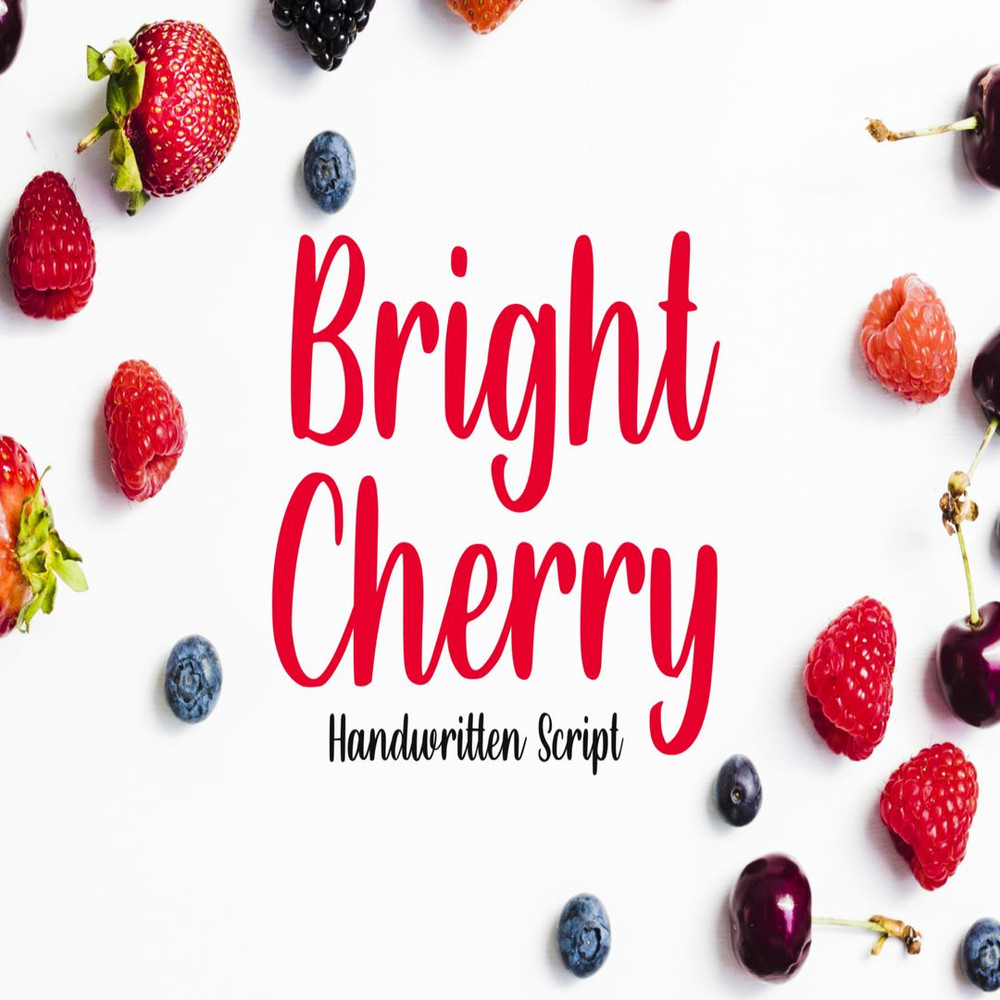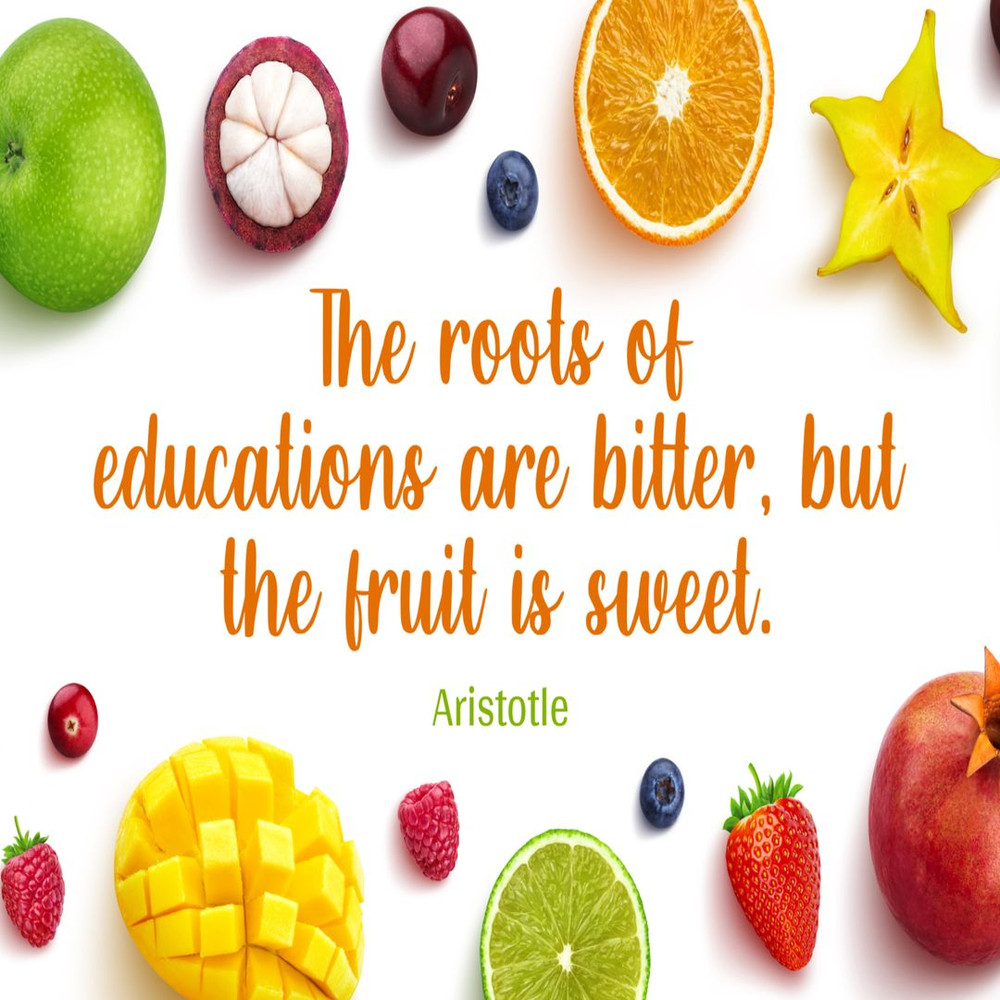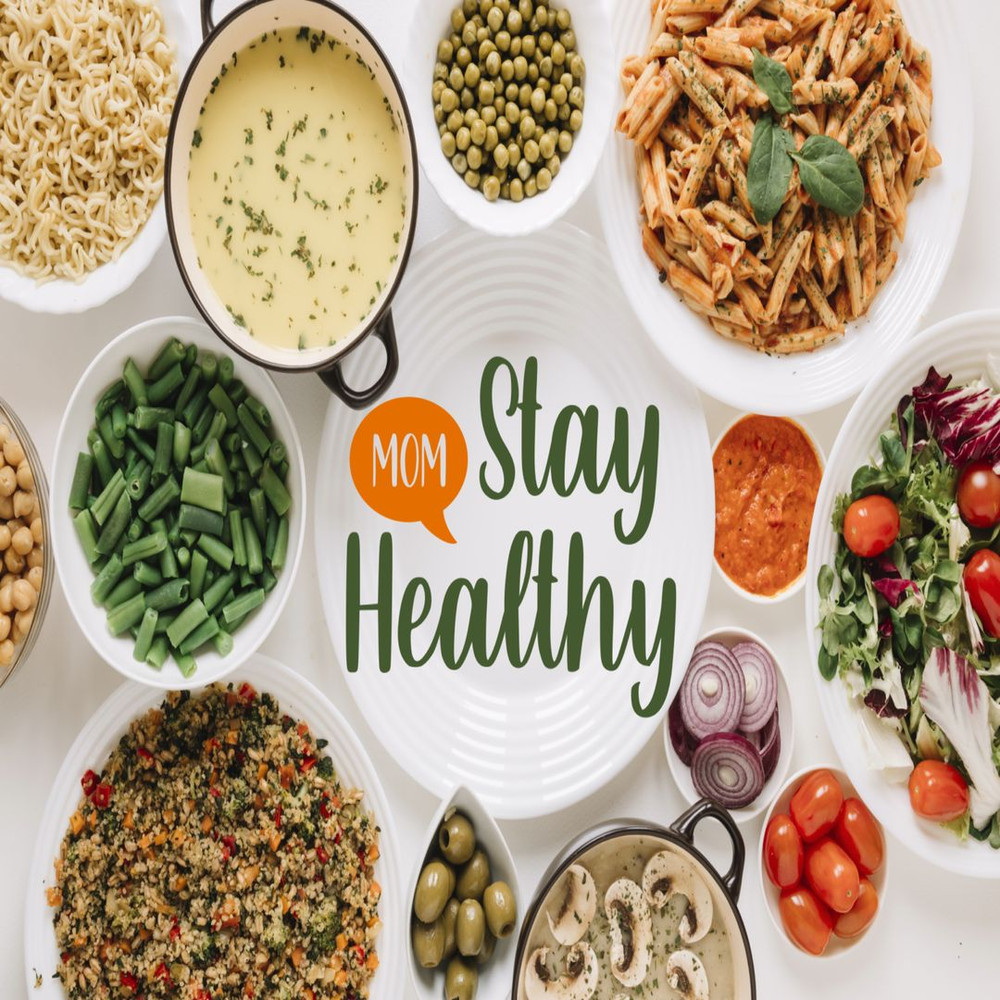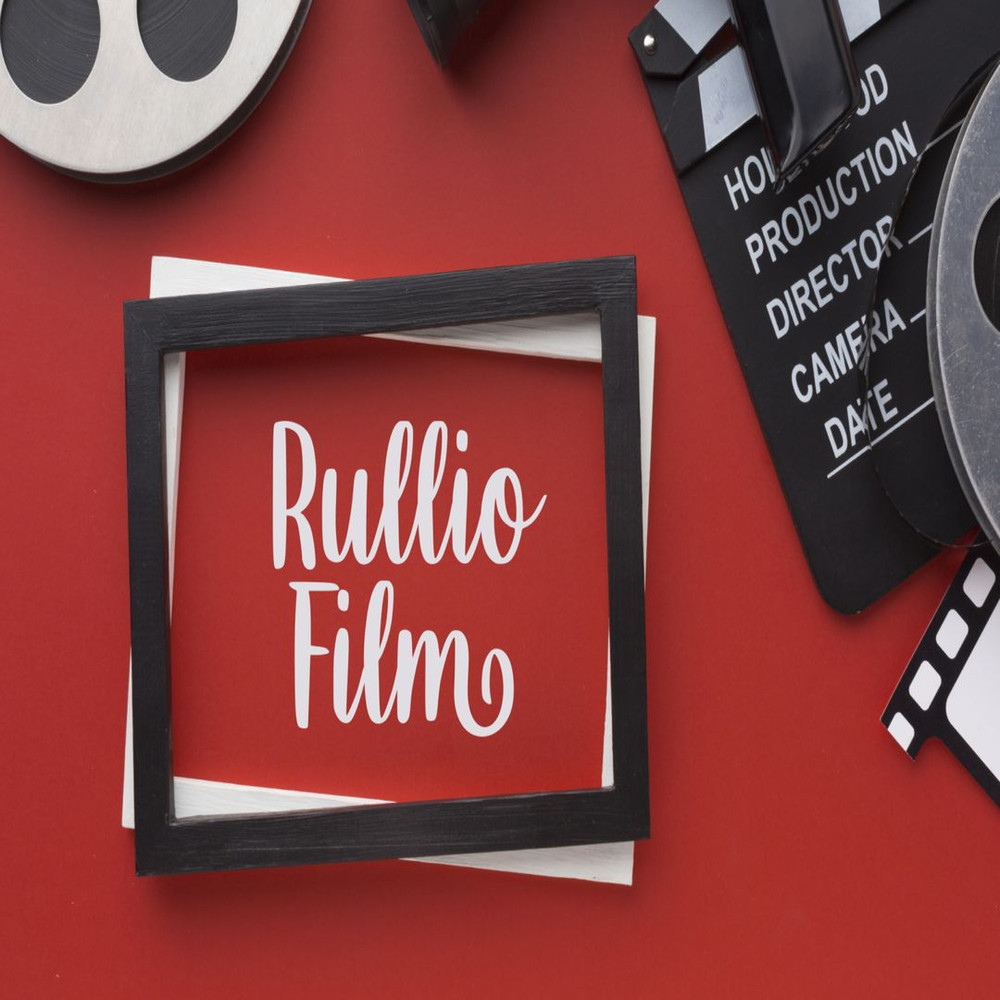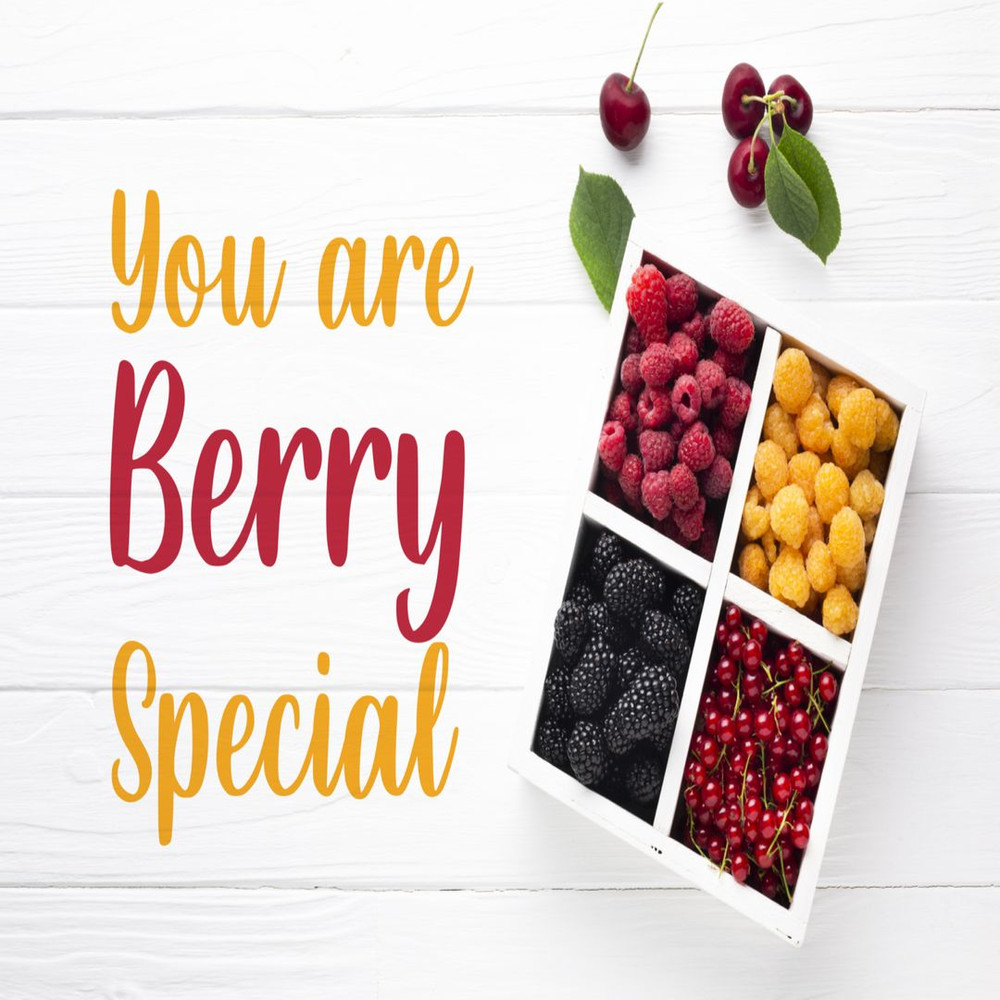
Bright Cherry is a handwritten calligraphy typeface with a natural style of brush lettering. It comes with the alternates glyph and multilingual support.
Bright Cherry is perfect for many different projects such as logos & branding, invitation, stationery, wedding designs, social media posts, advertisements, product packaging, product designs, label, photography, watermark, special events, or anything.
Bright Cherry is a handwritten calligraphy typeface with a natural style of brush lettering. It comes with the alternates glyph and multilingual support.
Bright Cherry is perfect for many different projects such as logos & branding, invitation, stationery, wedding designs, social media posts, advertisements, product packaging, product designs, label, photography, watermark, special events, or anything.
Bright Cherry is a handwritten calligraphy typeface with a natural style of brush lettering. It comes with the alternates glyph and multilingual support.
Bright Cherry is perfect for many different projects such as logos & branding, invitation, stationery, wedding designs, social media posts, advertisements, product packaging, product designs, label, photography, watermark, special events, or anything.
Bright Cherry is a handwritten calligraphy typeface with a natural style of brush lettering. It comes with the alternates glyph and multilingual support.
Bright Cherry is perfect for many different projects such as logos & branding, invitation, stationery, wedding designs, social media posts, advertisements, product packaging, product designs, label, photography, watermark, special events, or anything.